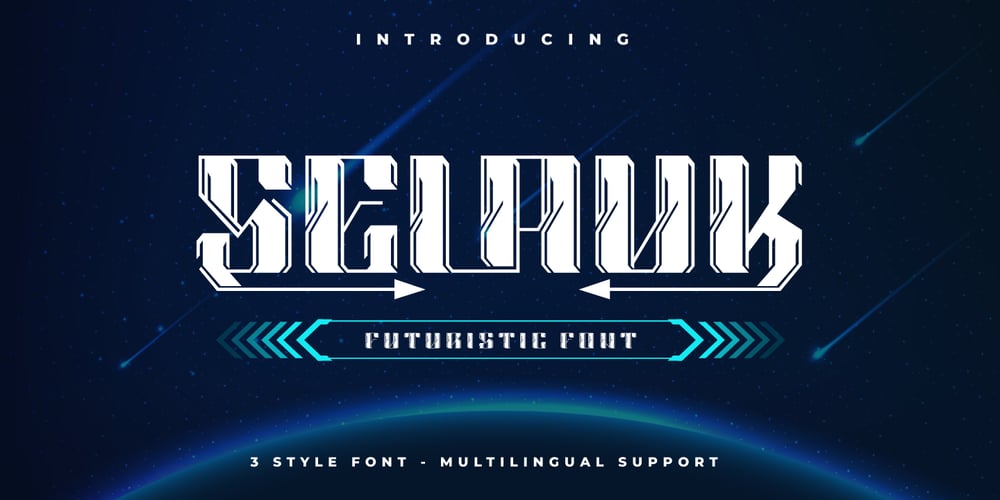
Selauk Font Family was designed by Rozikan and published by Twinletter. Selauk contains 4 styles and family package options. Selauk is a window into the futuristic world of typography’s future. With this theme, this font is the ideal answer for projects that need a touch of modern, sci-fi, and future atmosphere.What’s Included : File font All glyphs Iso Latin 1 Alternate, Ligature Simple installations PUA Encoded Characters – Fully accessible without additional design software. Fonts include Multilingual support